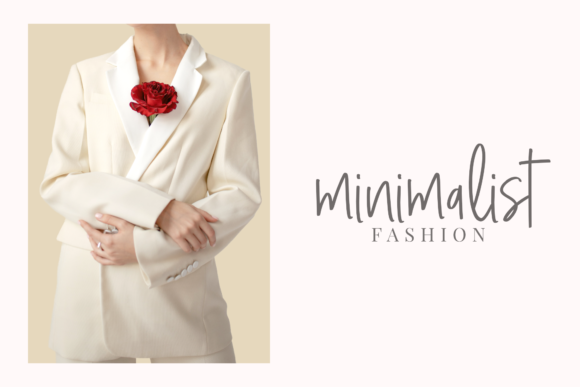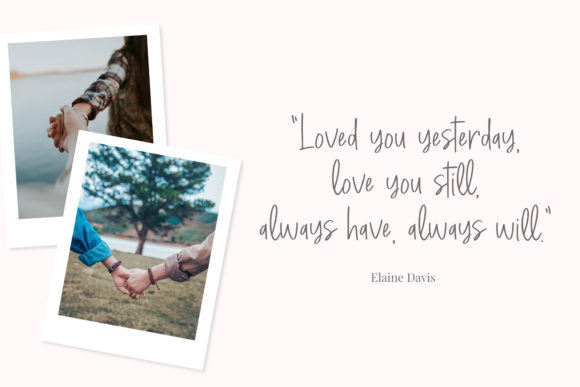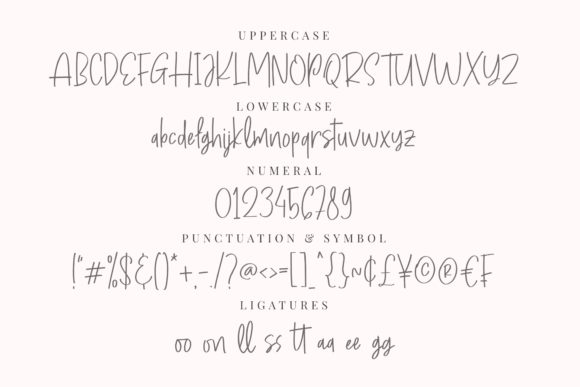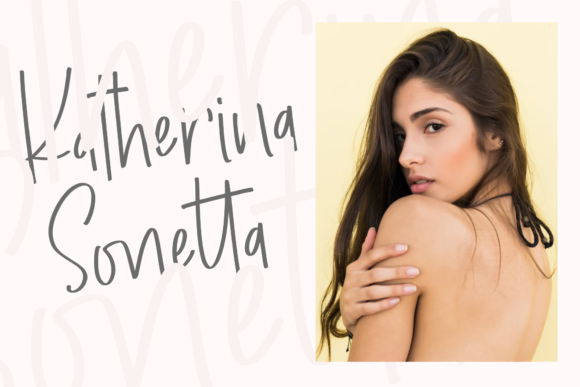
Better Summer Font
About Better Summer Font
Better Summer is a lovely and handwritten font that exudes elegance and class. This font was particularly crafted for those who need a beautiful and refreshing look to their designs.